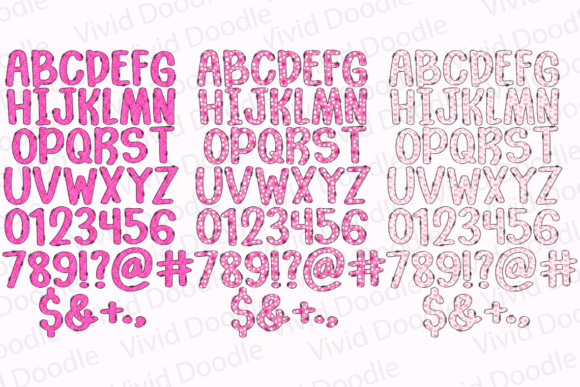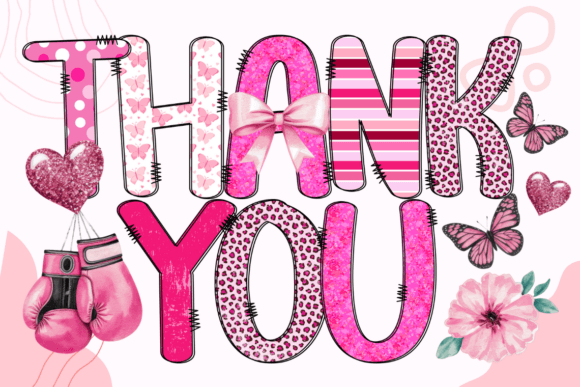
Breast Cancer Doodle Font
Featuring delicate doodles and ribbon motifs, this font is perfect for creating awareness posters, fundraising materials, or adding a special touch to events centered around breast cancer awareness. Whether for school projects, community events, or personal creative works, this font helps spread a message of hope, strength, and solidarity. Use it to inspire and uplift, showing support for the cause in a meaningful and artistic way.Note!This product is a color font (Opentype-SVG) and is compatible with PhotoShop, Illustrator, Silhouette, and Inkscape. The OTF and/or TTF files of this product are not compatible with Cricut. For more information on how to use this type of font please check our Ultimate Font Guide .